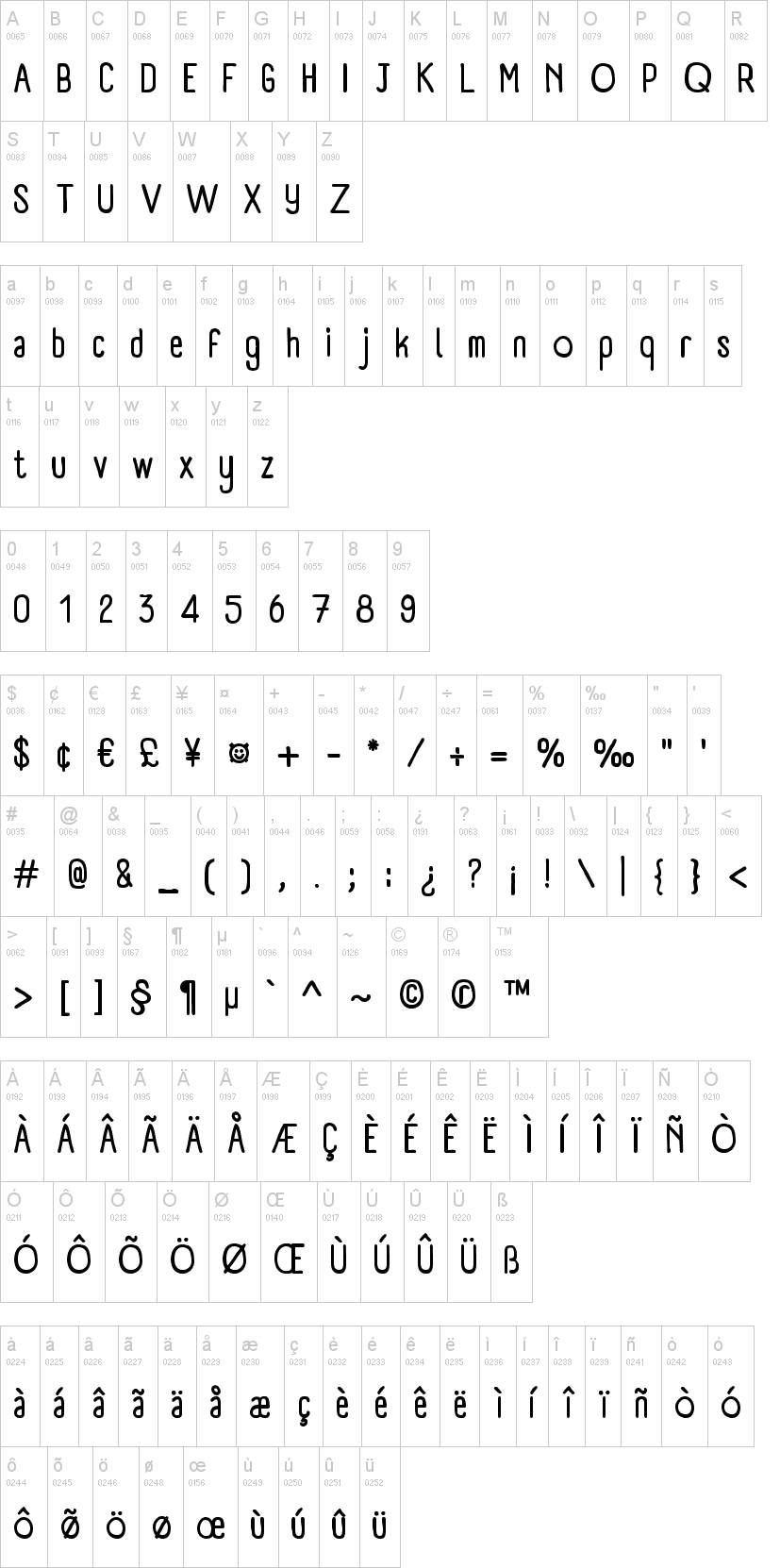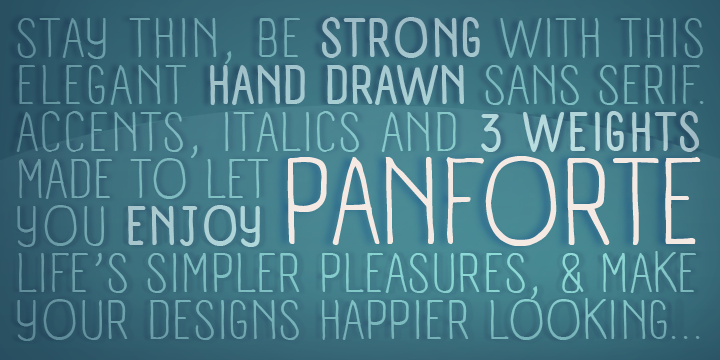
panforte_regular.ttfpanforte_bold.ttfpanforte_light_italic.ttfpanforte_regular_italic.ttfpanforte_bold_italic.ttfNote of the authorPanforte is a new fancy handwirtten fonts with 6 body for more awesome combination.